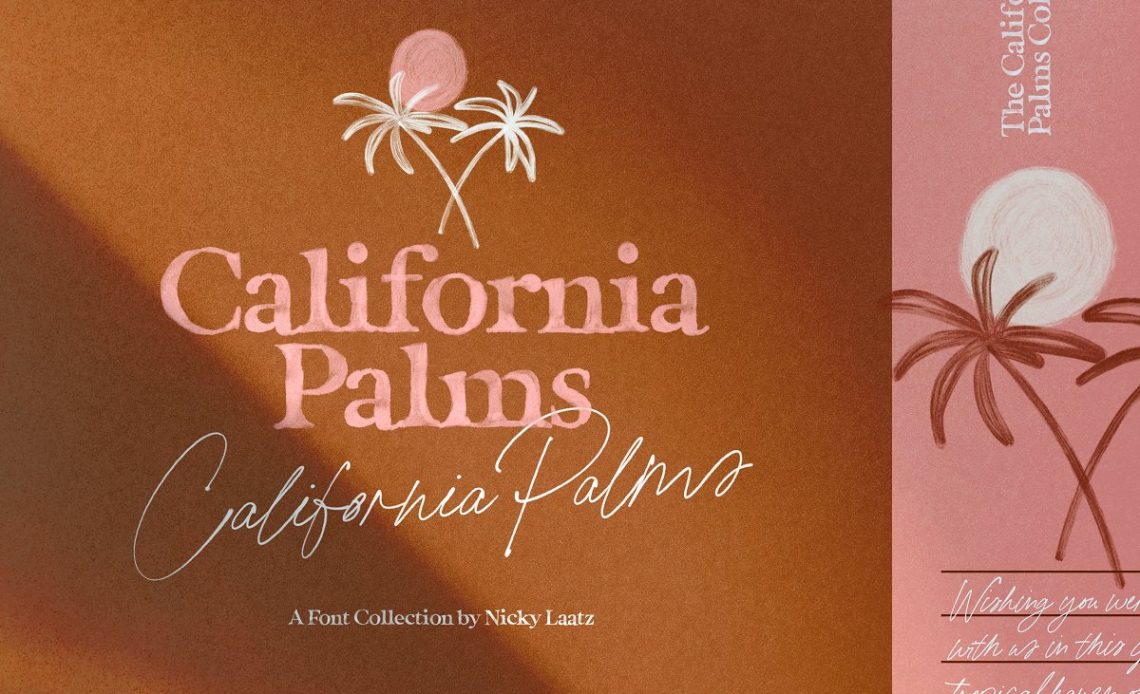
Get ready to transport yourself to a summer paradise with the California Palms Fonts & Graphics Collection! This stunning collection of fonts and graphics is the brainchild of renowned designer Nicky Laatz and is perfect for anyone looking to add some creativity and authenticity to their designs.
With both SVG and regular fonts included in the collection, you'll have everything you need to create gorgeous summer-themed designs that truly stand out. The real watercolor and marker pen texture of the SVG Serif fonts add an extra touch of authenticity that regular fonts just can't offer, while the stylish script font is the perfect complement to both Serifs and equally stunning on its own.
In addition to the fonts, the collection includes 65 graphic elements that are perfect for adding some summer flair to your designs. From beach umbrellas to palm trees, these graphics are available in various easy-to-use formats, including layered Photoshop files, individual PNGs, individual PDF vectors, and an Illustrator file.